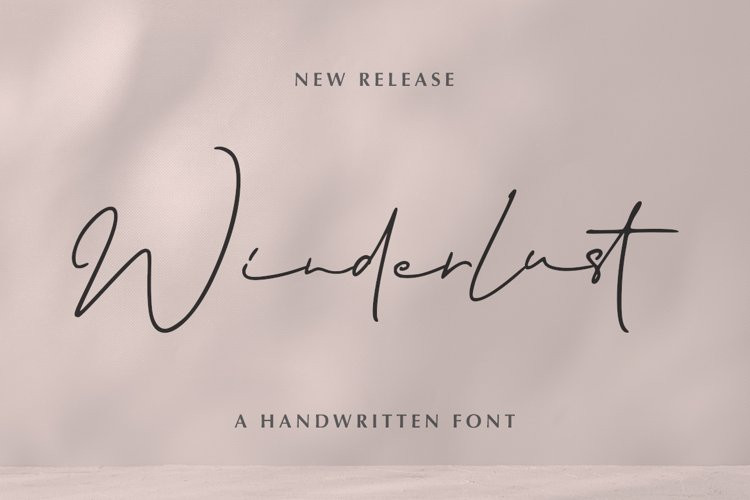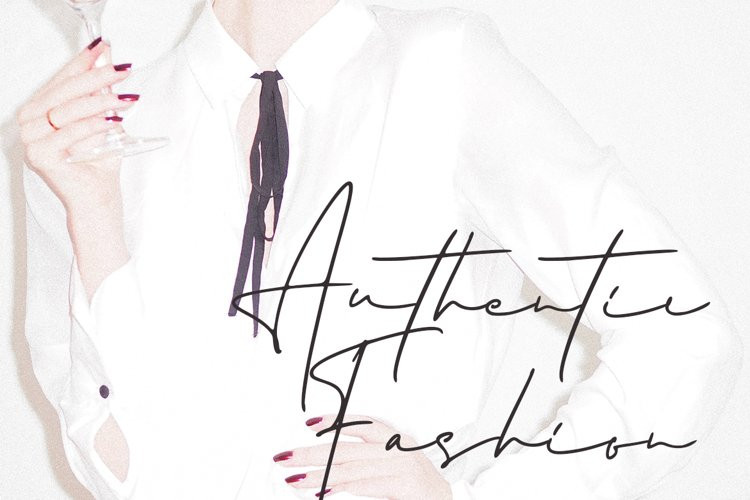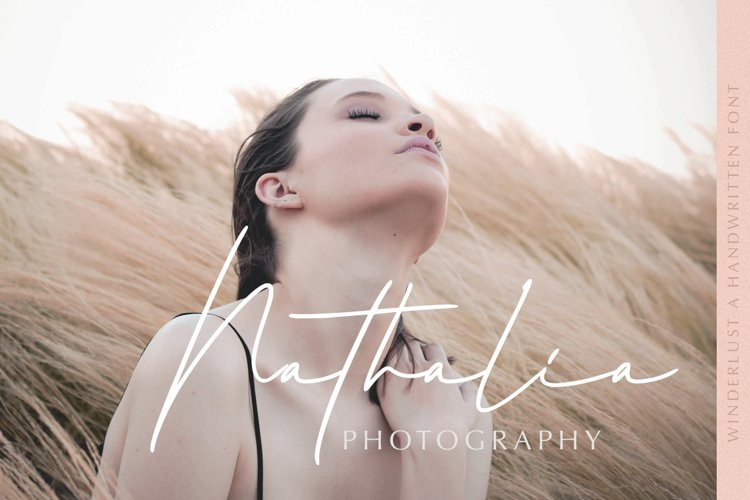
Winderlust Font
Winderlust is perfect for many different projects such as logos & branding, invitation, stationery, wedding designs, social media posts, advertisements, product packaging, product designs, label, photography, watermark, special events, or anything.
Winderlust